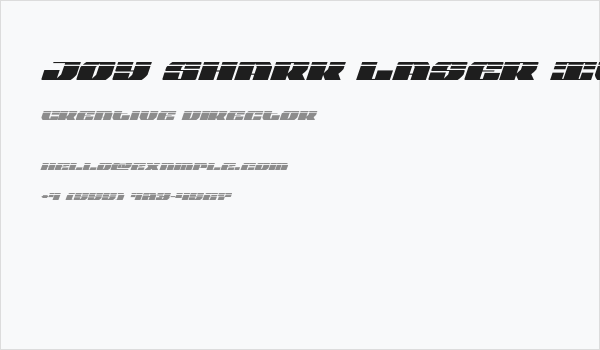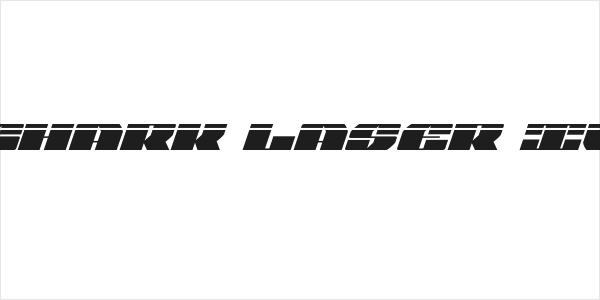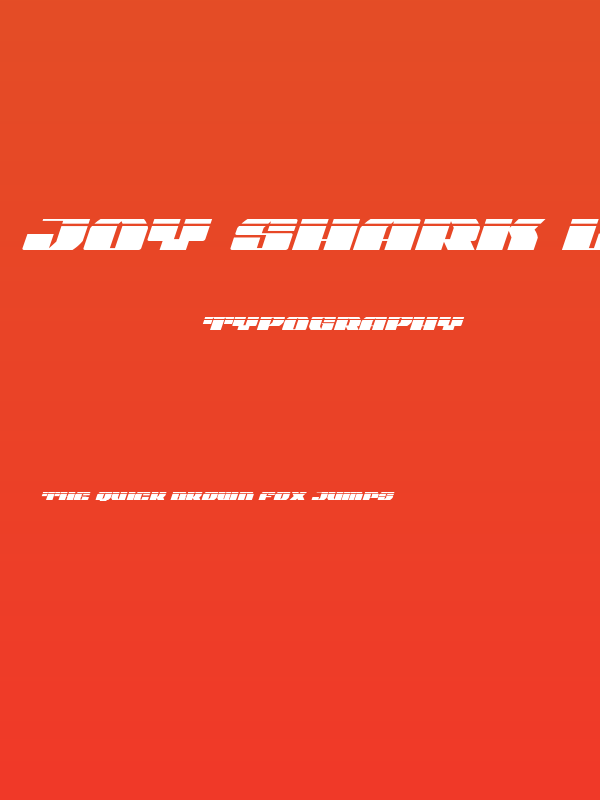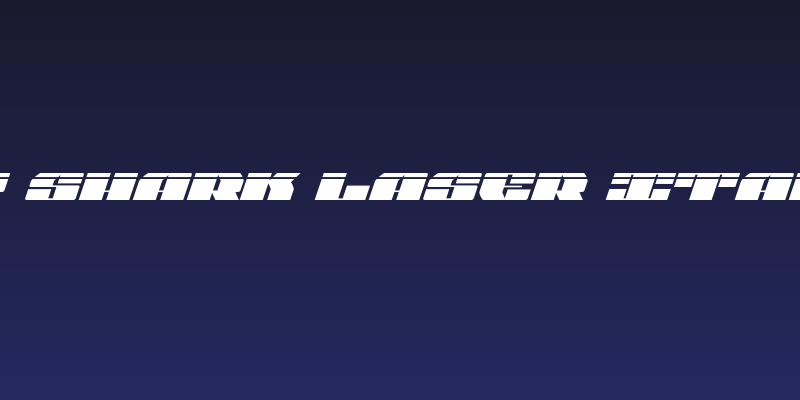
Joy Shark Laser Italic Font
Joy Shark Laser Italic Description
This font features a bold and dynamic style with a futuristic and angular design. The characters are sharply cut with a distinct slant, giving them a sense of motion and speed. The uppercase and lowercase letters maintain a consistent geometric structure, while the numbers and special characters follow the same angular theme. The font's thick strokes and sharp edges create a strong visual impact, making it suitable for attention-grabbing designs. Its italic nature enhances the sense of movement, adding to its modern and edgy appeal.
| Proposed Projects | Ideal for sci-fi themed posters, video game titles, sports branding, and dynamic logos. |